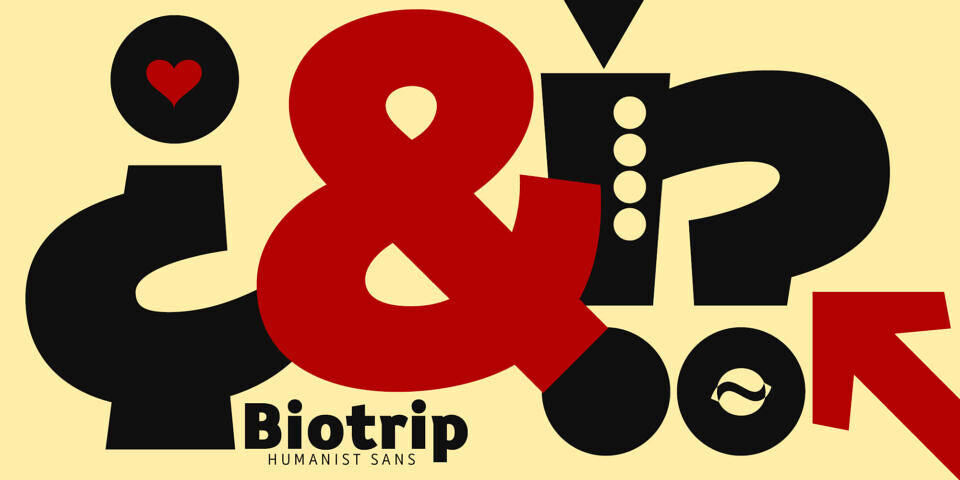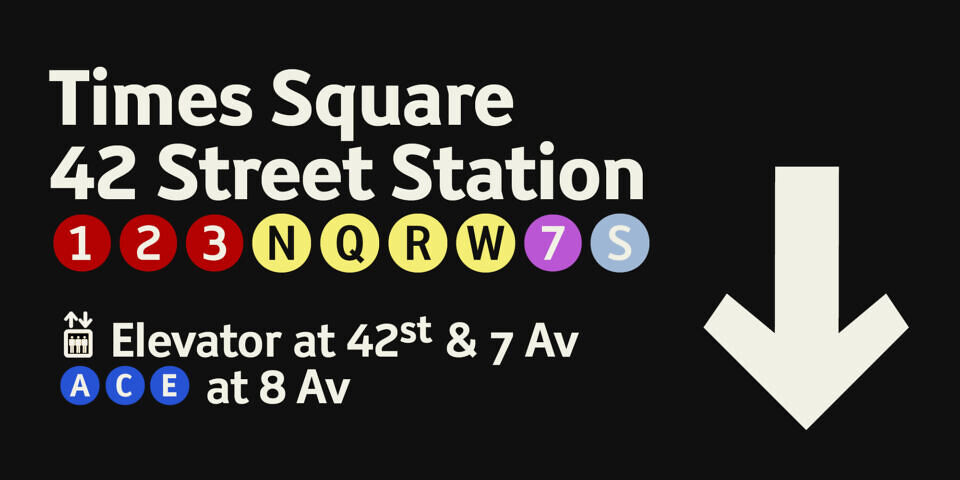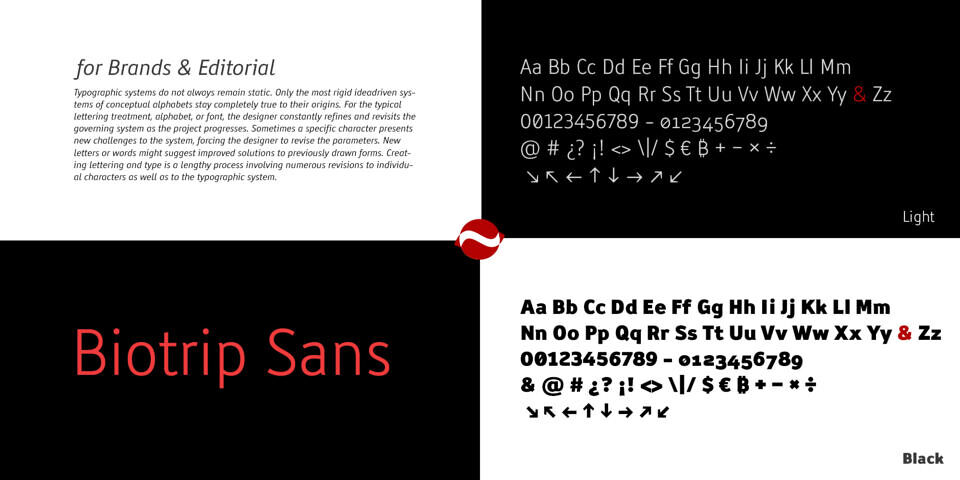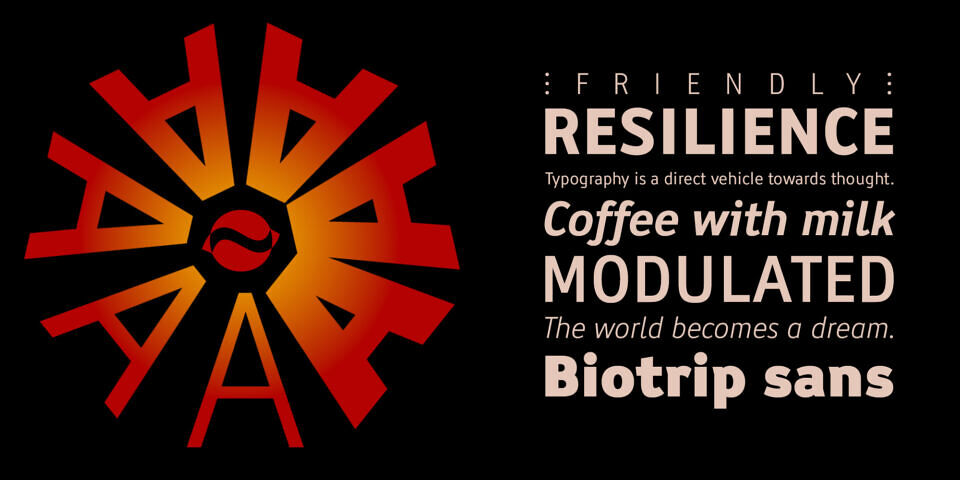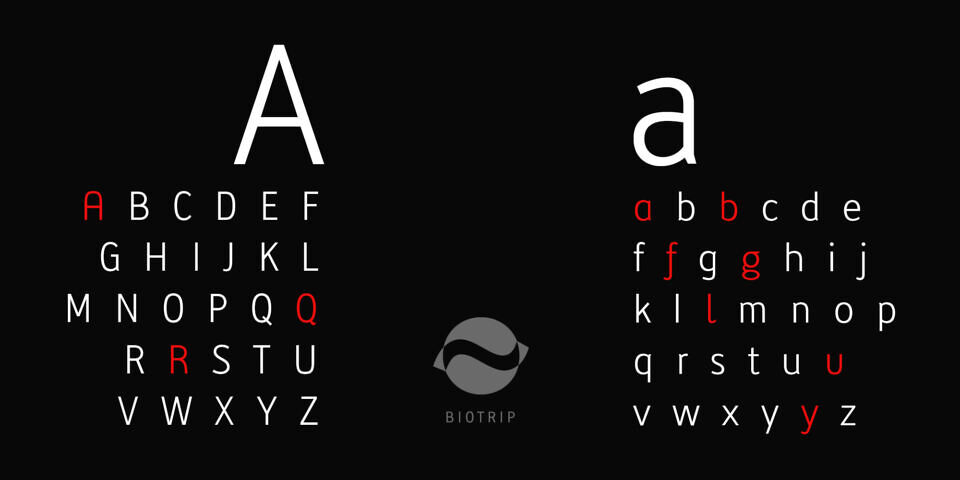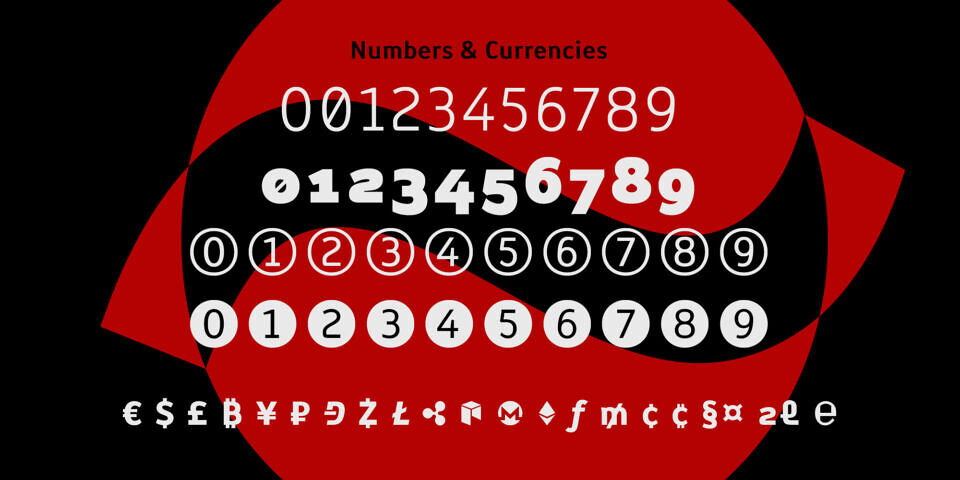
Biotrip Sans is a friendly type family that represents, above all, a journey — a trip from the purity of geometry to the warmth of organic design. It is a humanist sans-serif, living in the fascinating space where geometric structure softens and rational proportions give way to expressive, human movement. While its foundation is geometric, its spirit feels organic and alive. There is no mechanical rigidity or coldness here — every curve was designed to feel natural, not just readable.
Biotrip Sans is born from expressive strokes and the connection between thought and motion. Its forms are grounded in geometry, yet softened by an organic rhythm that makes reading feel intuitive and comfortable. Open shapes, balanced spacing, and neutral forms give the typeface a warm, versatile, and highly legible character, even at smaller sizes — because great typography should never need to shout to be understood.